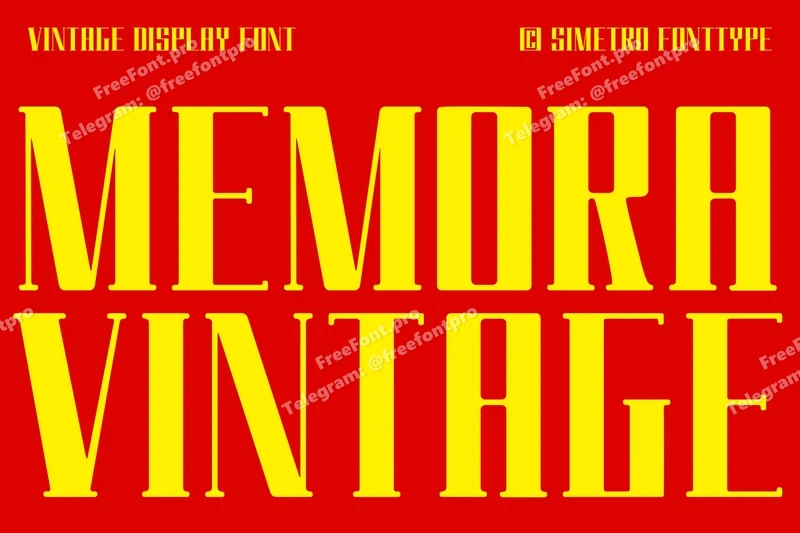
Memora Vintage – Retro Display Font
Memora Vintage is a bold and striking display font inspired by vintage poster typography and classic monument engravings. With its tall letterforms and narrow spacing, this typeface captures a sense of strength, authority, and nostalgia. Perfect for branding, editorial design, packaging, or retro-themed projects, Memora Vintage brings a timeless and powerful personality to your designs. Each character is crafted with precision combining modern sharpness with old-style aesthetics. Whether you’re creating a bold headline, a striking logo, or an eye-catching poster, this font will make your message stand out with confidence and style.